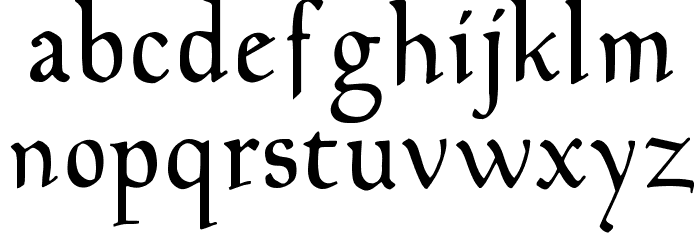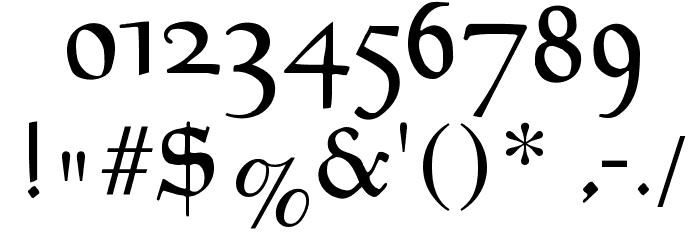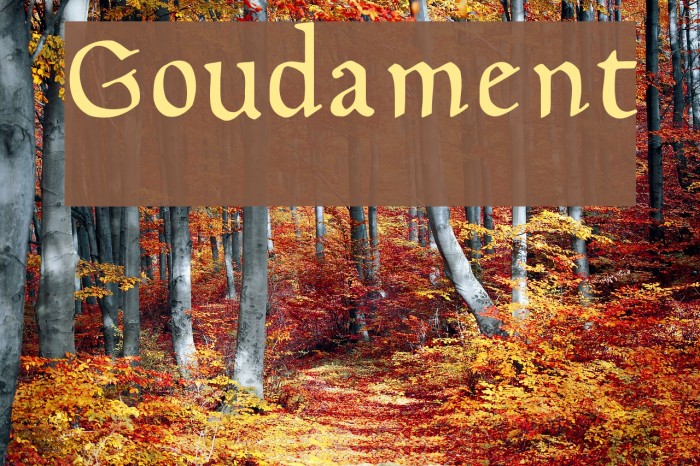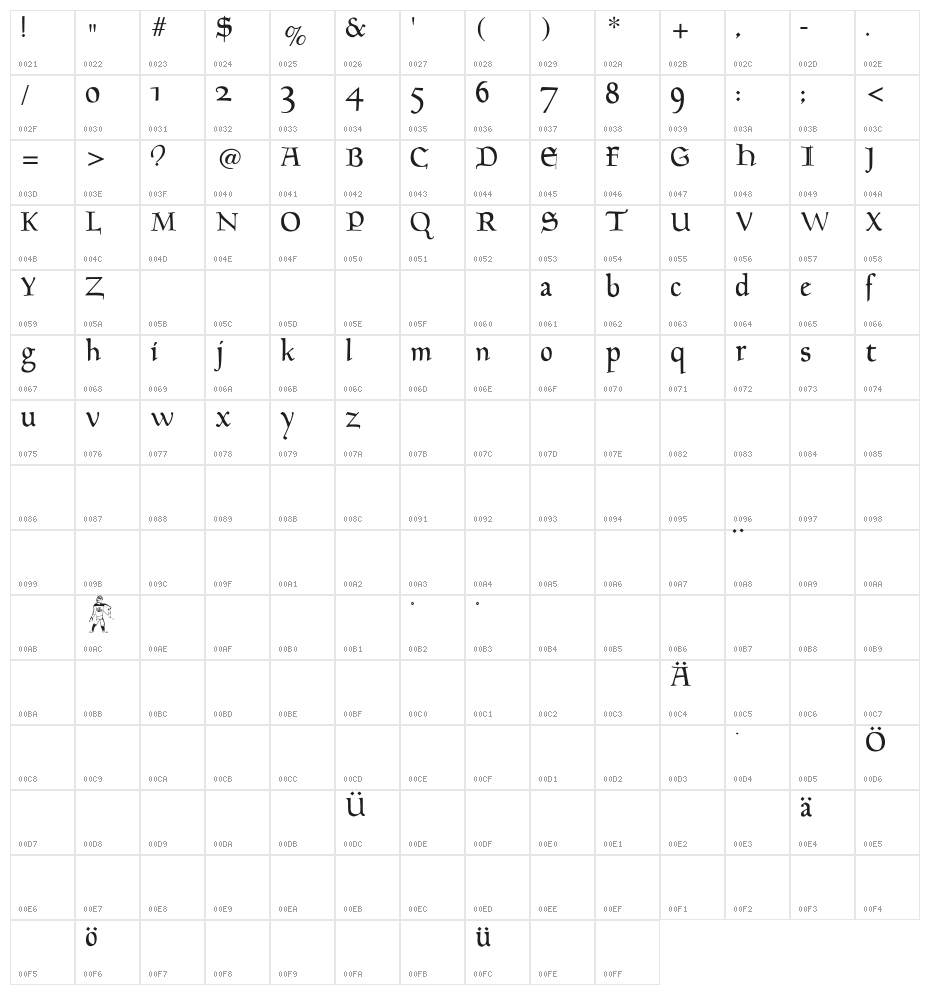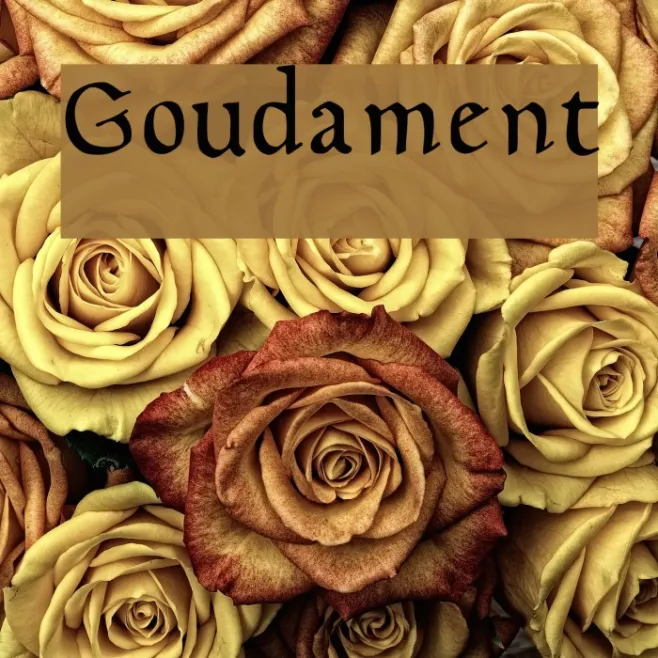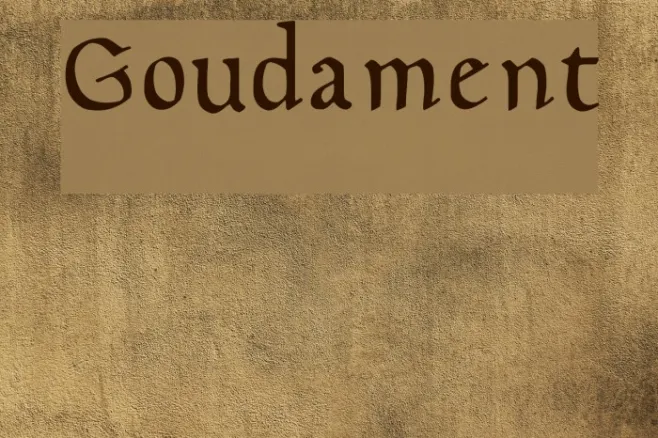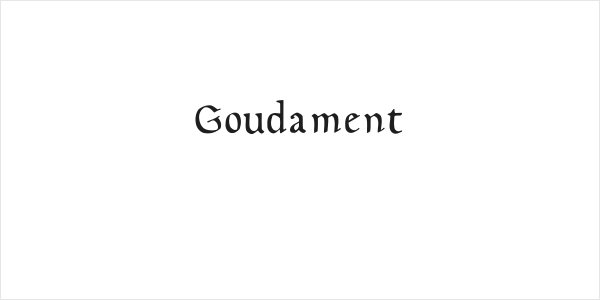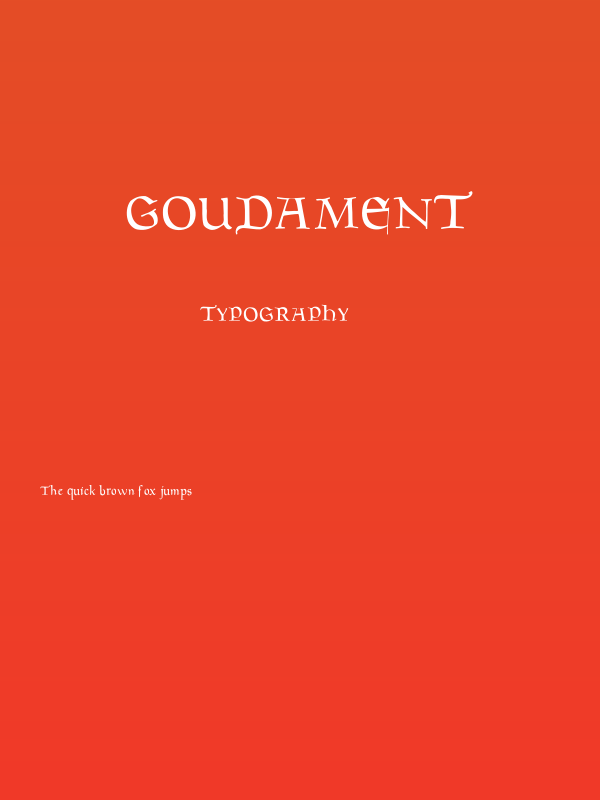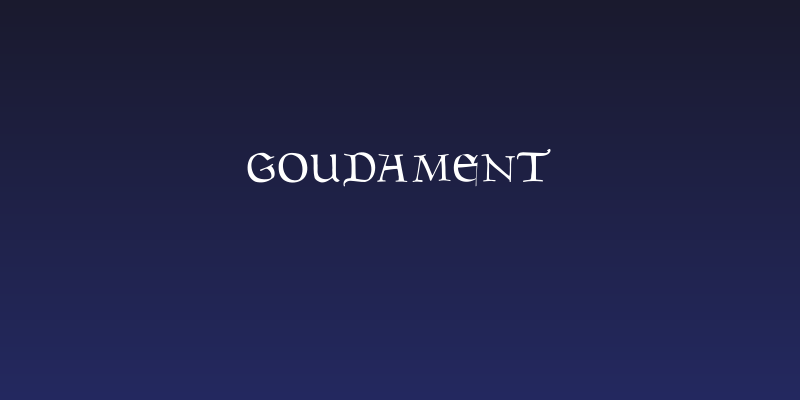
Goudament Font
This font features a unique blend of classic and modern elements, characterized by its elegant and slightly whimsical design. The uppercase letters exhibit a distinct flair with varying stroke widths, while the lowercase letters maintain a more consistent and rounded appearance. The numerals are bold and clear, making them highly legible. Special characters are crafted with attention to detail, adding a touch of sophistication. The overall style is reminiscent of traditional serif fonts but with a contemporary twist, making it versatile for various design applications.
A classic yet modern serif font with elegant and whimsical elements.
- Proposed Projects: Ideal for book covers, invitations, branding, and editorial design where a touch of elegance and sophistication is desired.
- Category: Serif
- Overall Style: Classic